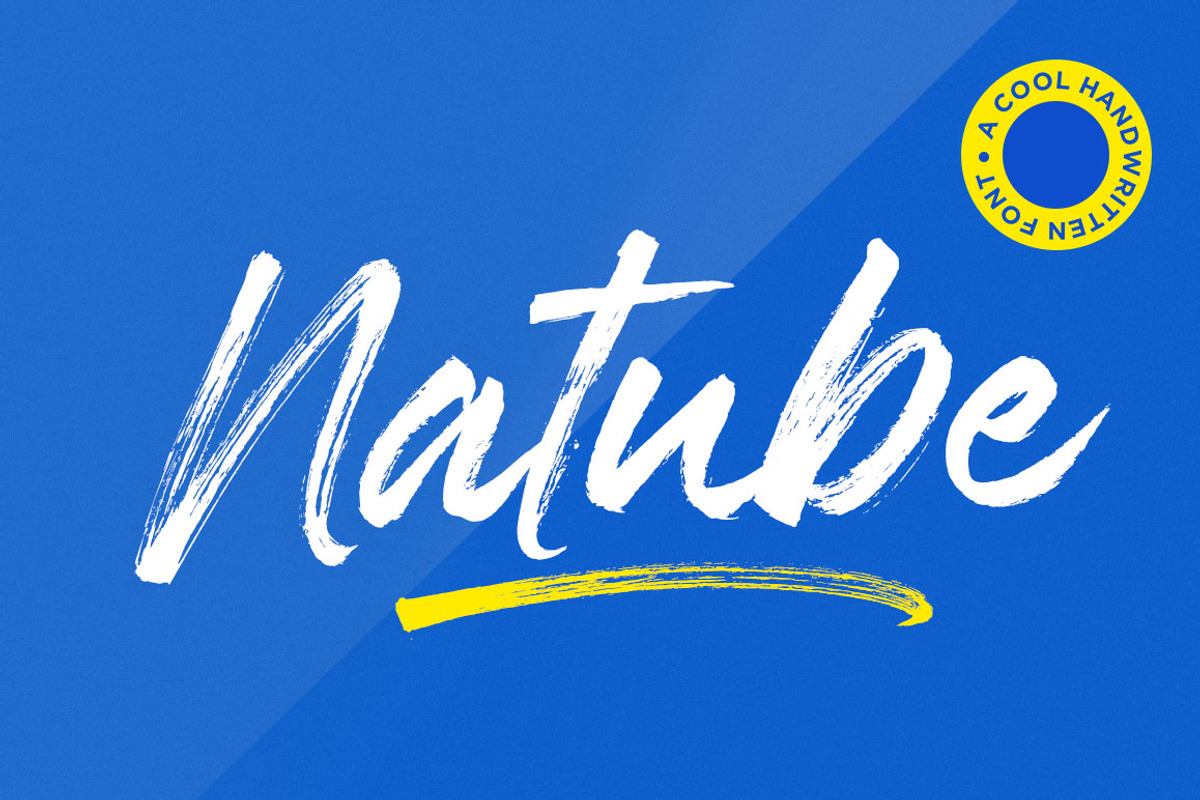
Natube Brush Font Free Download is a bold and expressive typeface that brings a handcrafted, brush-painted feel to your designs. With dynamic strokes and organic textures, this font is perfect for posters, streetwear branding, social media visuals, YouTube thumbnails, and artistic packaging.
Its raw, energetic style captures the spontaneity of real brush lettering—ideal for creatives who want their typography to stand out with personality and movement. Whether you're working on a music promo, urban apparel, or DIY design, Natube delivers that bold, handmade impact.
Designers love Natube for its gritty aesthetic and bold attitude across both digital and print projects. Want to make your message loud, stylish, and full of energy? Download Natube Brush Font Free Download and bring the art of brush lettering to your next project.